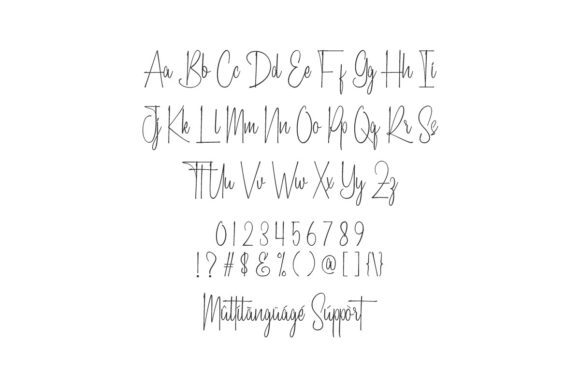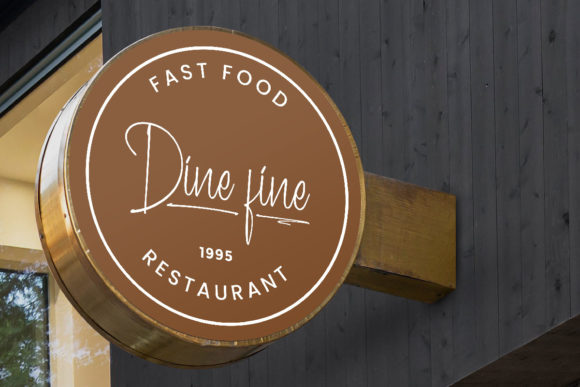
Bayfield Road Font
db-ku.com - Script & Handwritten -- Bayfield Road is a unique and elegant handwritten font. It looks beautiful on a variety of designs requiring a personalized style. This font is PUA encoded which means you can access all of the glyphs and swashes with ease!